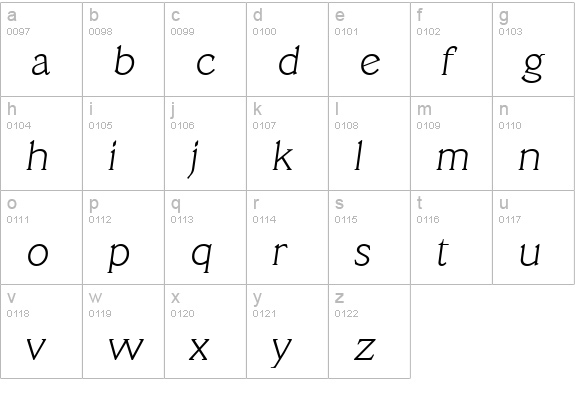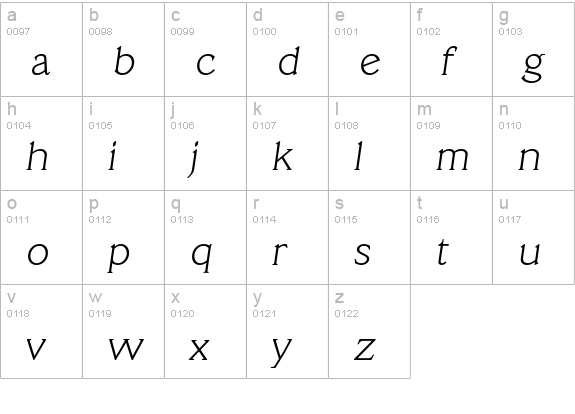
VeracruzSerial-Xlight-Italic is a distinctive, italic variant in the VeracruzSerial typeface family \xE2\x80\x94 well suited to design and typography projects.
VeracruzSerial-Xlight-Italic is a sleek and modern font that exudes elegance and sophistication. Its slender and italicized design gives it a unique and stylish look, making it perfect for adding a touch of class to any project. The delicate curves and subtle slant of the letters create a sense of movement and fluidity, capturing the eye of the reader with its graceful appeal. What makes VeracruzSerial-Xlight-Italic even more appealing is that it is available for free download at FontsMarket.com. This means that you can easily access this exquisite font without any cost, making it a valuable addition to your font collection. Whether you're working on a design project, creating a logo, or simply looking to elevate your typography game, VeracruzSerial-Xlight-Italic is a versatile choice that will enhance the visual impact of your work. Download it today and experience the beauty and elegance of this stunning font for yourself.